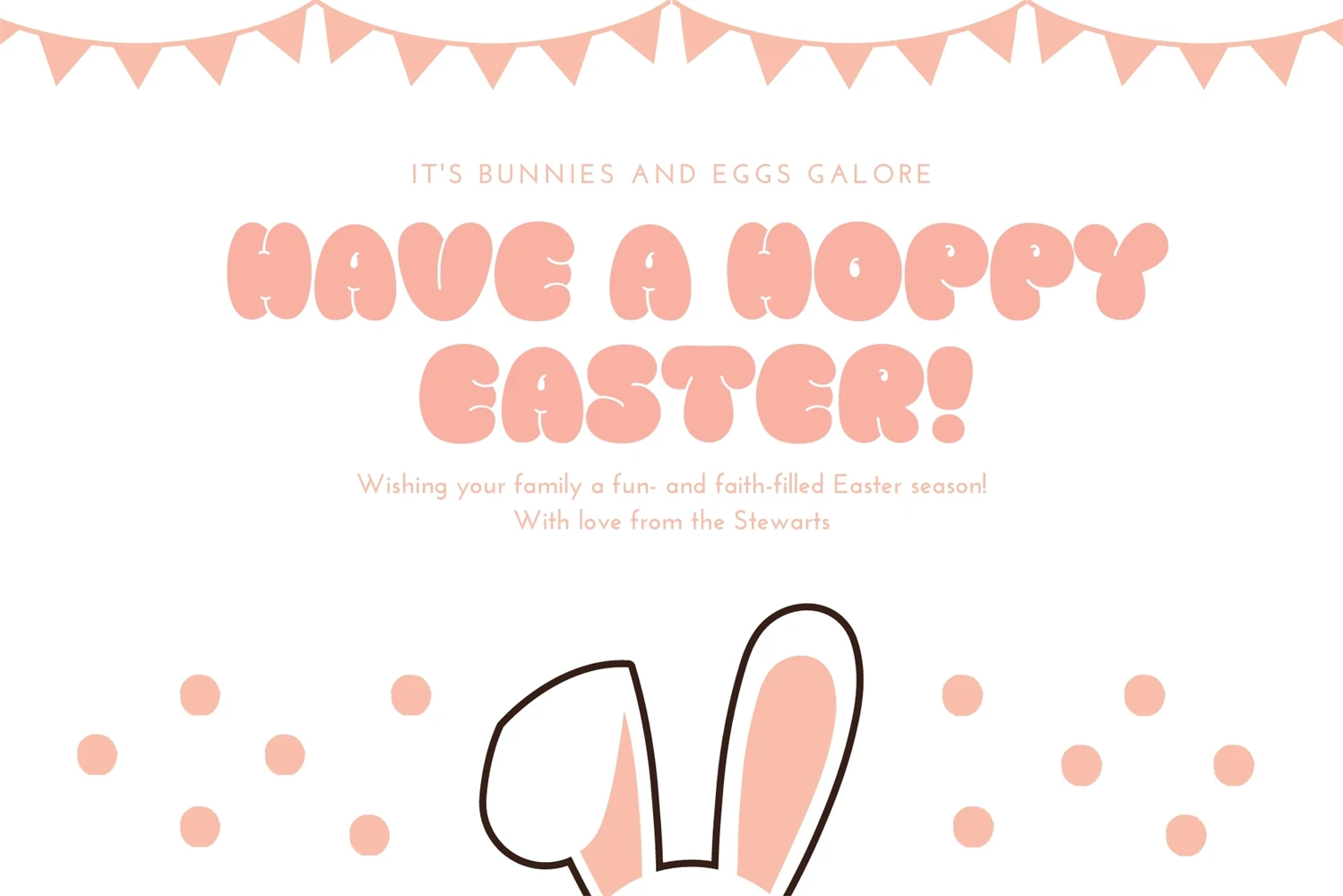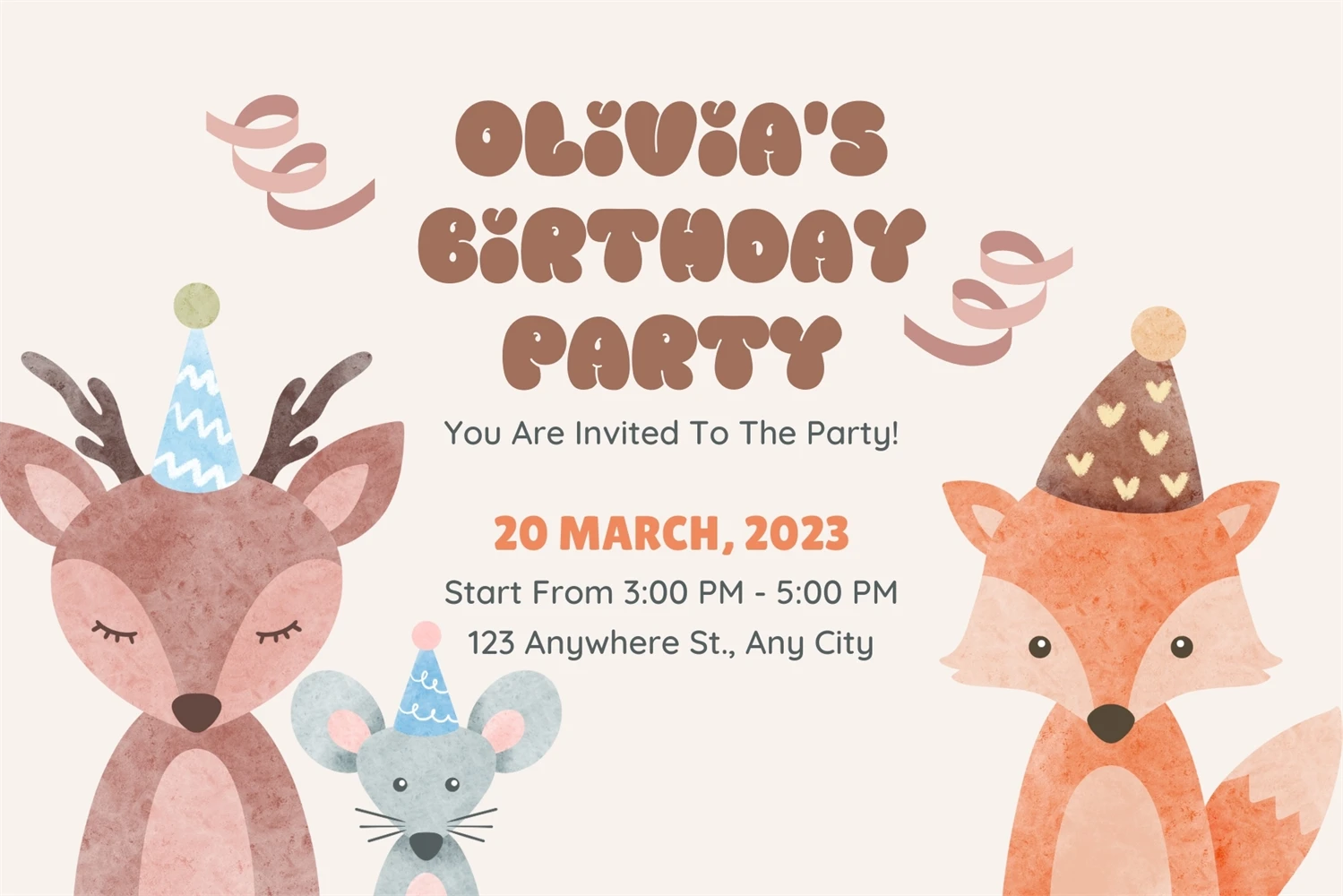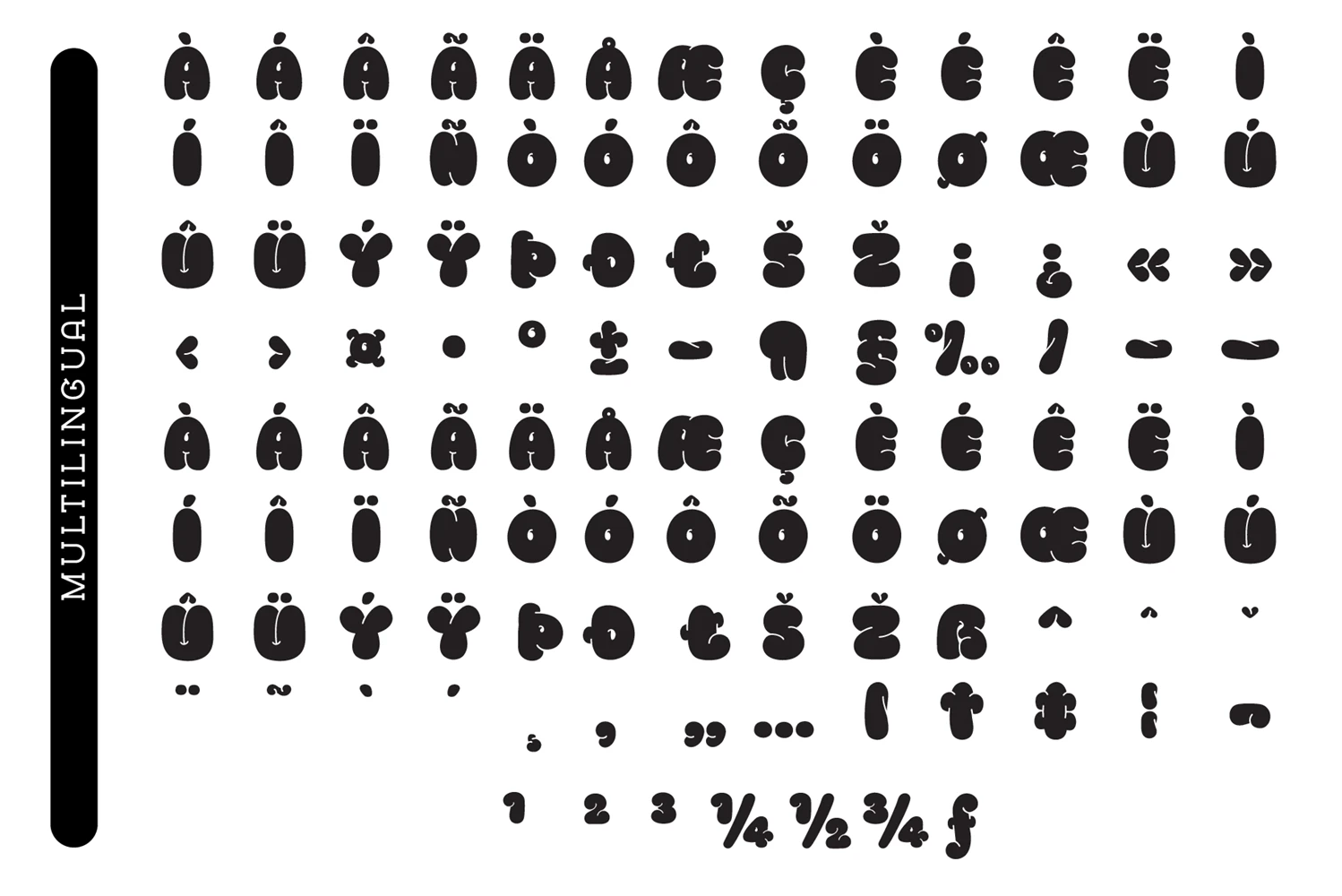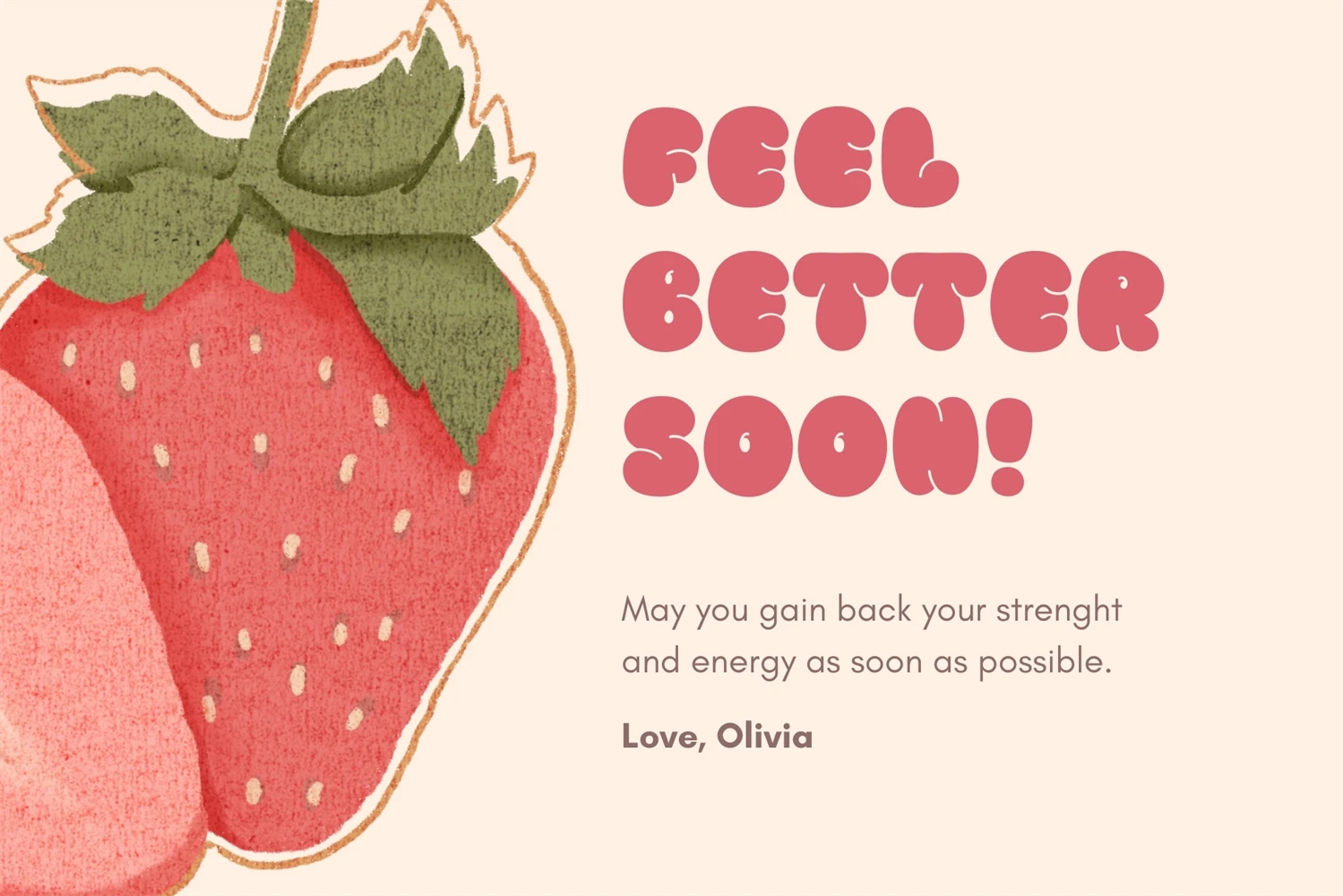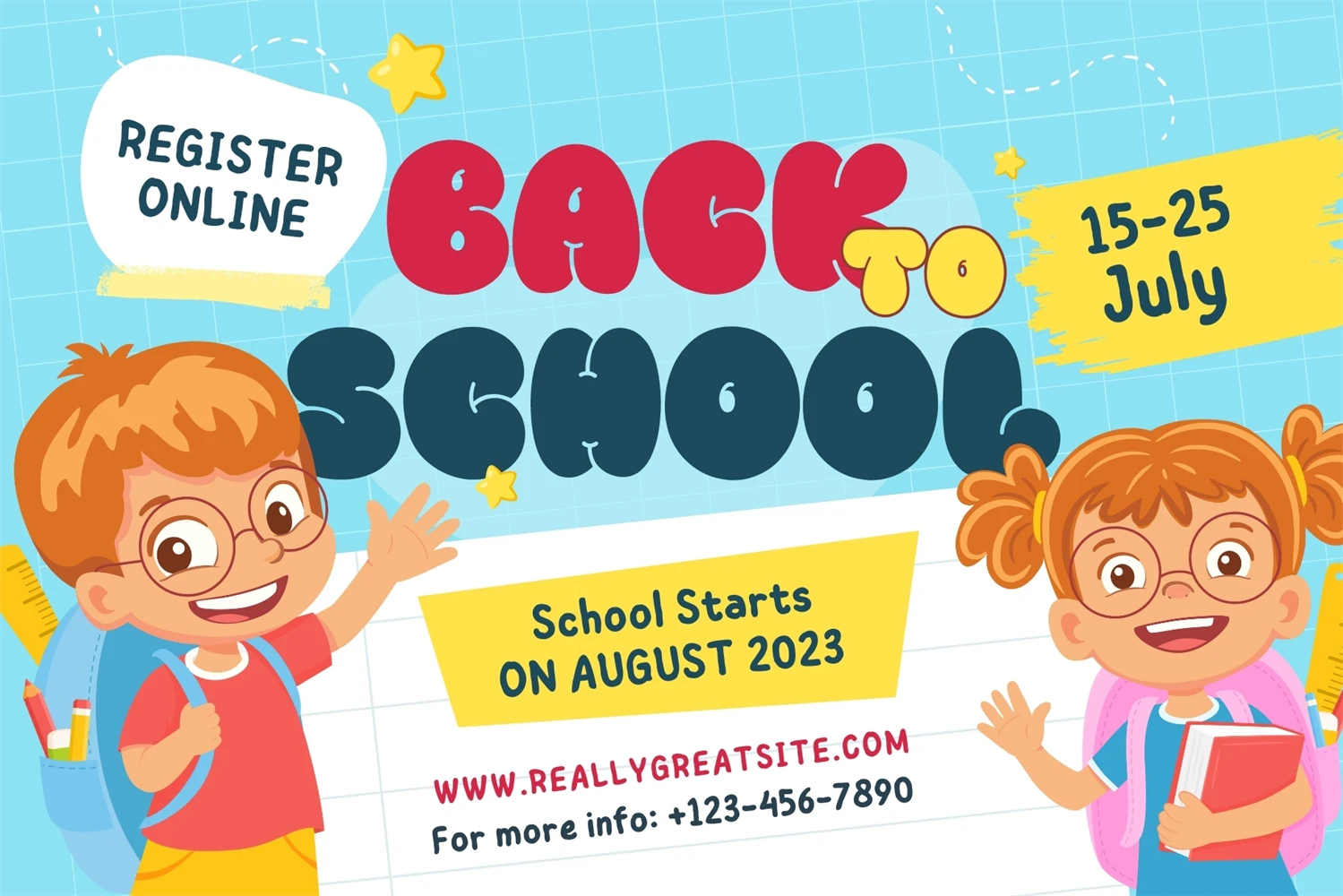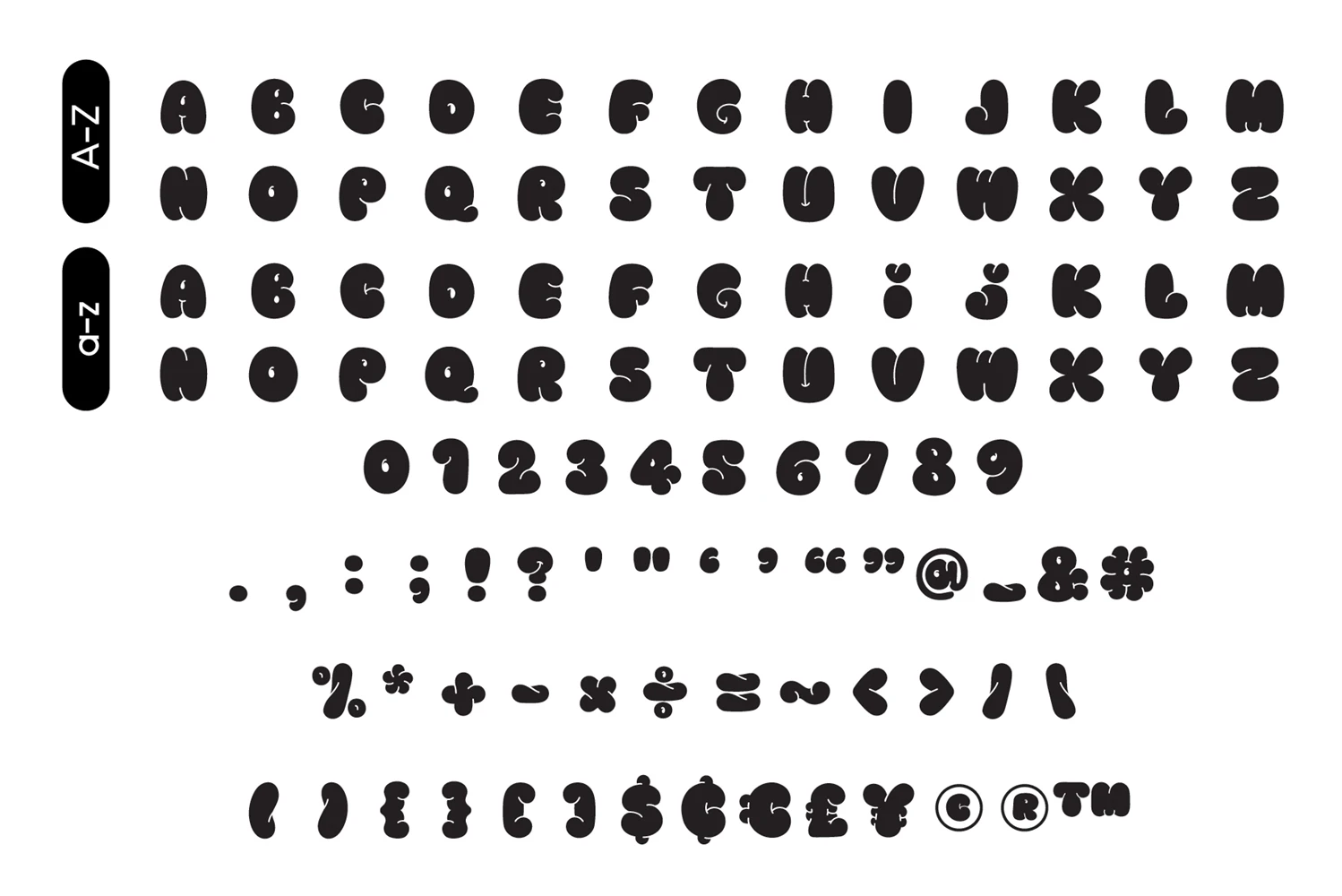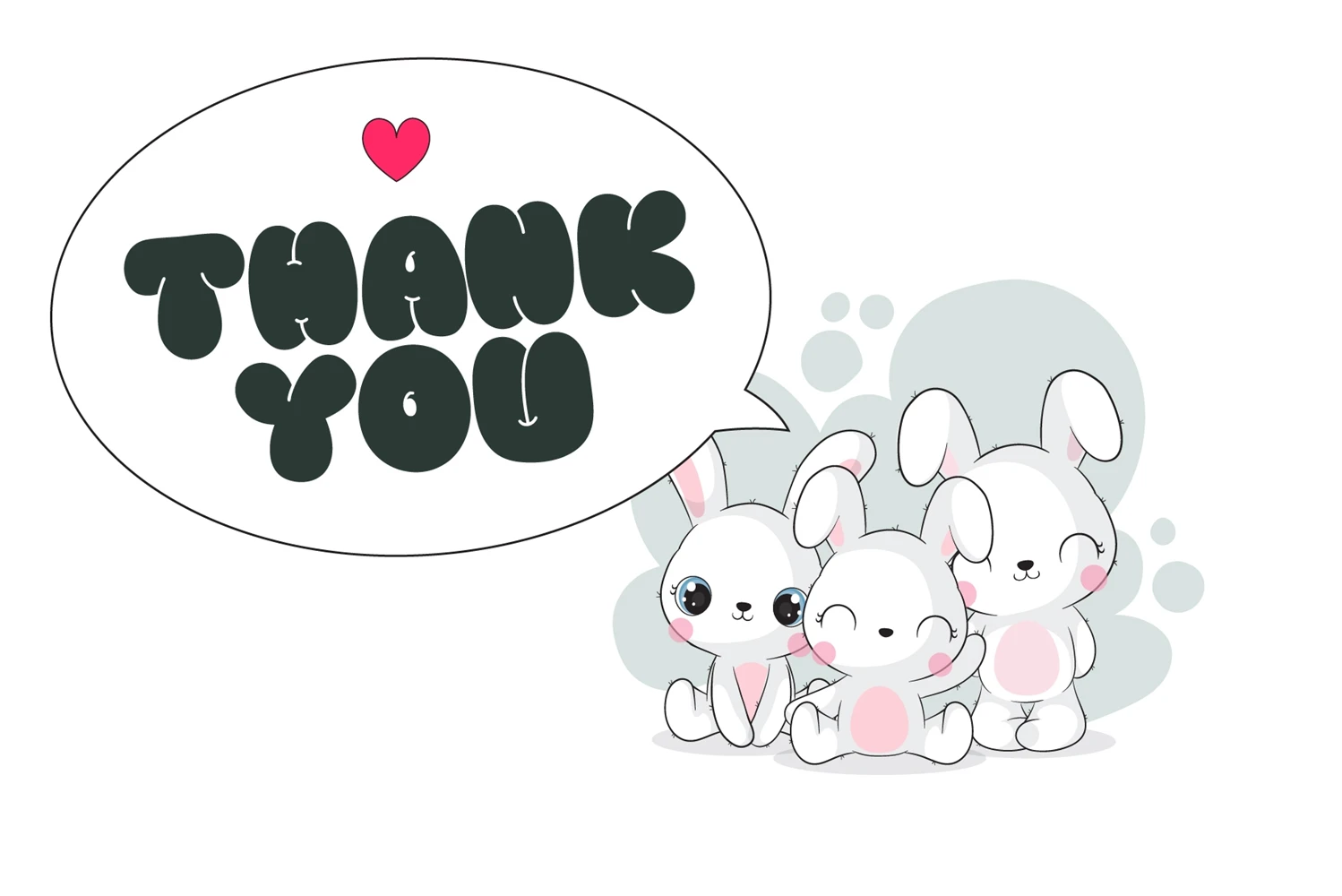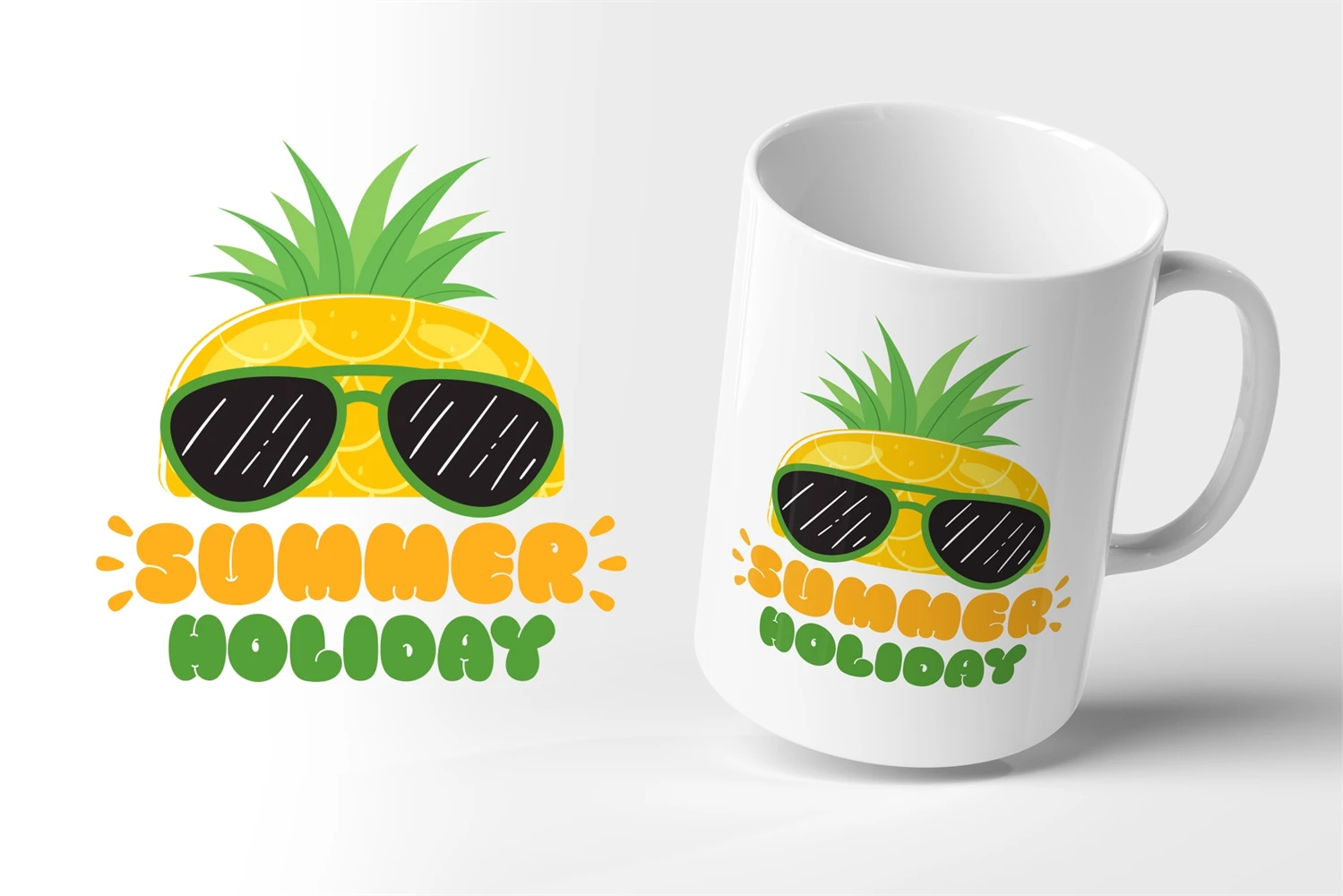
Fox Limber Font is Cute chubby round font a playful display font that the cool, and fun font. this font is perfect for adding a touch of personality to any design project. Whether youre creating t-shirts, stickers, childrens book covers, social media posts, or anything in between, Fox Limber Font is the perfect choice for making your designs stand out.